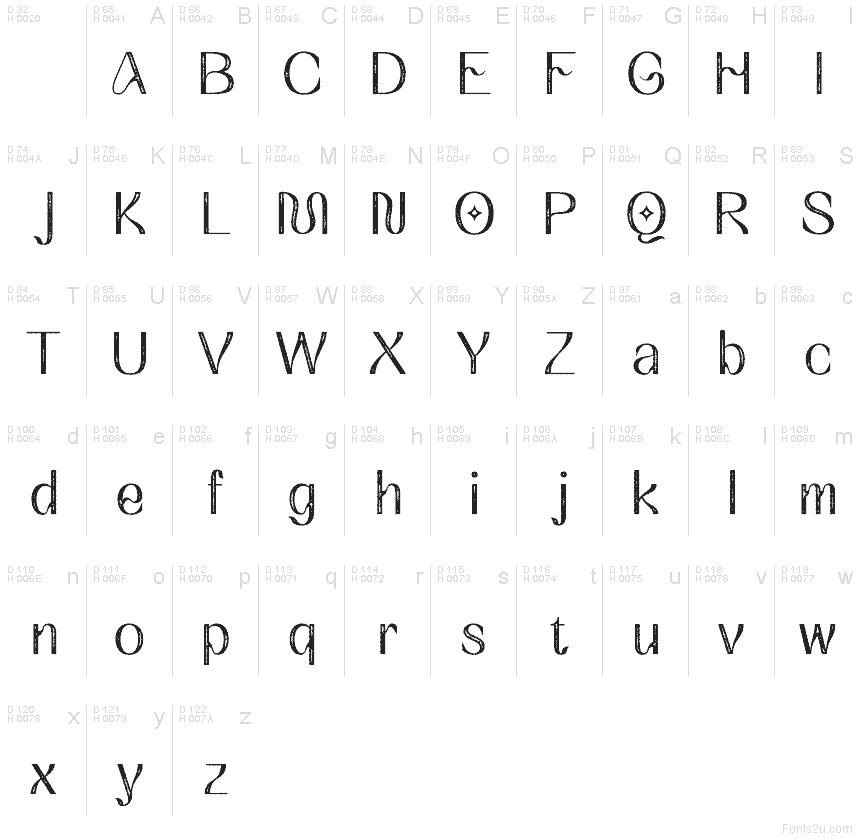
Quency Stamp Regular Demo
Quency Stamp font by Craft Supply Co. is a distinguished vintage display typeface with an authentic eroded and textured look. Whimsical, artistic, and full of historical charm this free font contains different decorative elements across letterforms resulting in a strong artistic flair. Carefree, and captivating this font is masterfully crafted to instantly catch attention whenever used.
Stylish uses are available for product packaging, printed items such as business cards or labels, posters, logo designs, titles, book covers, branding items etc. Classic website designs made using Quency will also attract visitors due to the stunning visual appeal that combines the past with the present time!